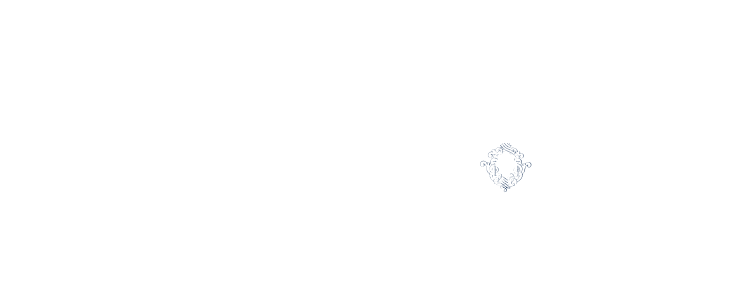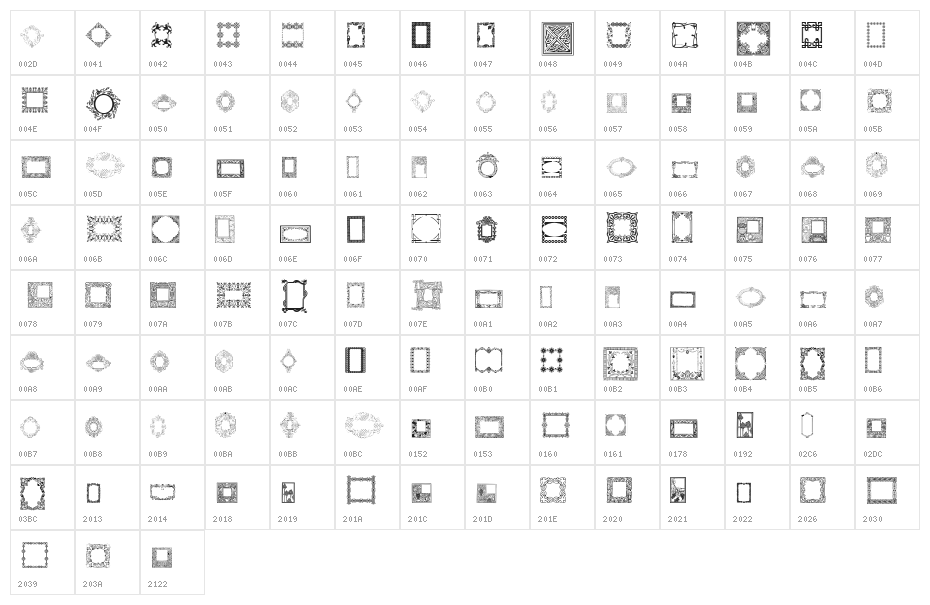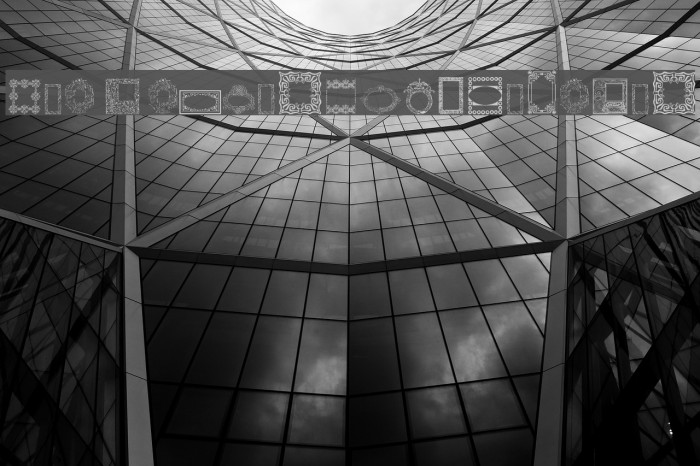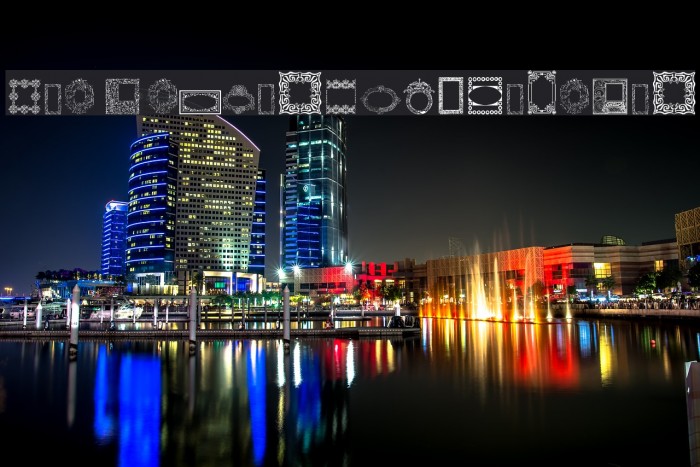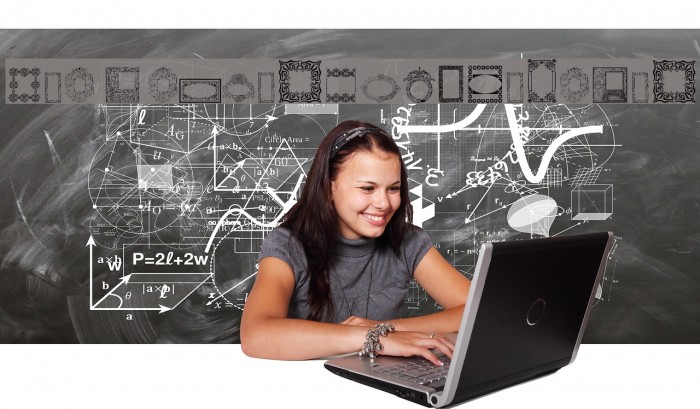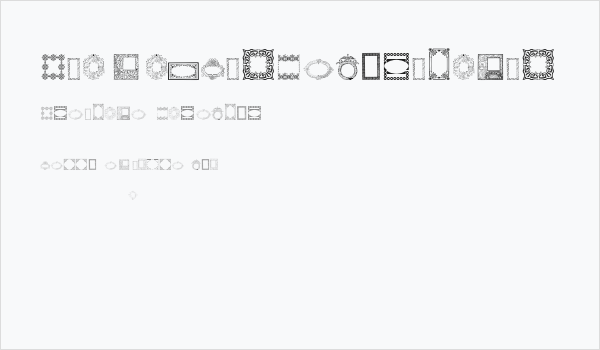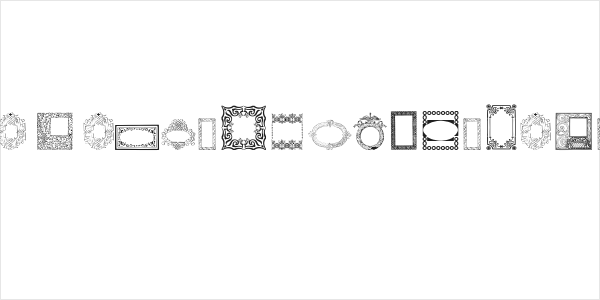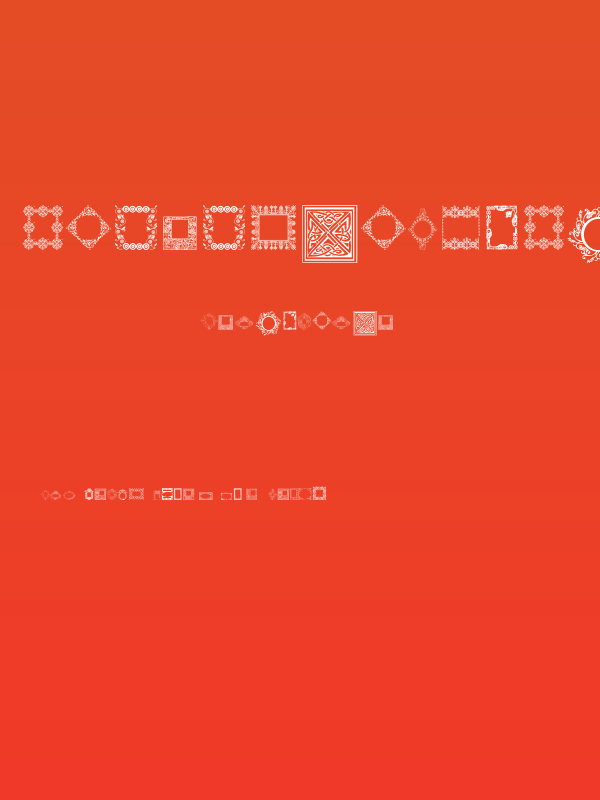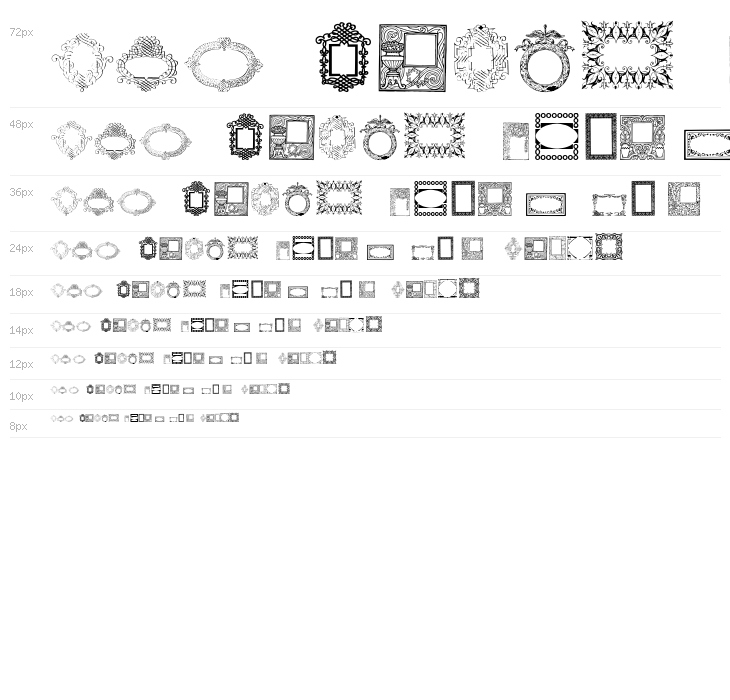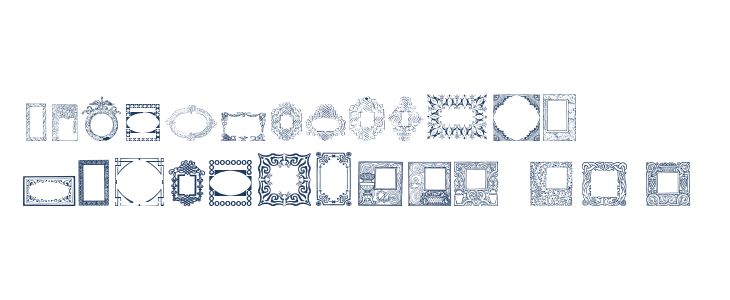
CaixinhasDecorativas Font
CaixinhasDecorativas Description
A decorative collection of ornate, intricate box and frame designs with a variety of flourishes, borders, and embellishments, each glyph representing a unique ornamental shape rather than traditional alphanumeric characters.
| Overall Style | Decorative, Vintage, Ornamental |
| Use Case | Borders, Frames, Decorative accents, Graphic design elements |
| Proposed Projects | Invitations, certificates, scrapbooking, decorative labels, packaging, vintage-themed designs. |